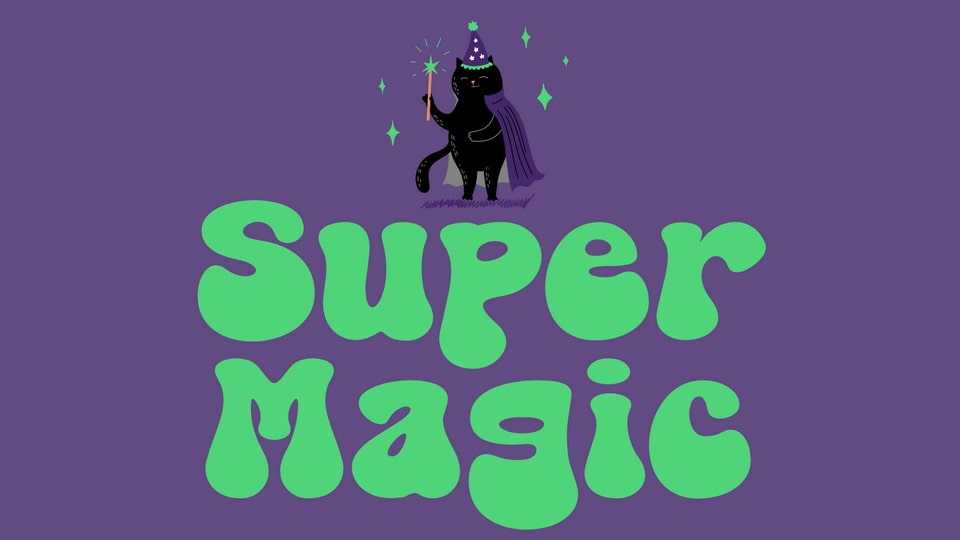
Download Super Magic font, a groovy and playful typeface that transports your designs to a world of carefree vibes and infectious energy. Super Magic font features a vibrant and funky design, with each letter exuding a sense of rhythmic movement.